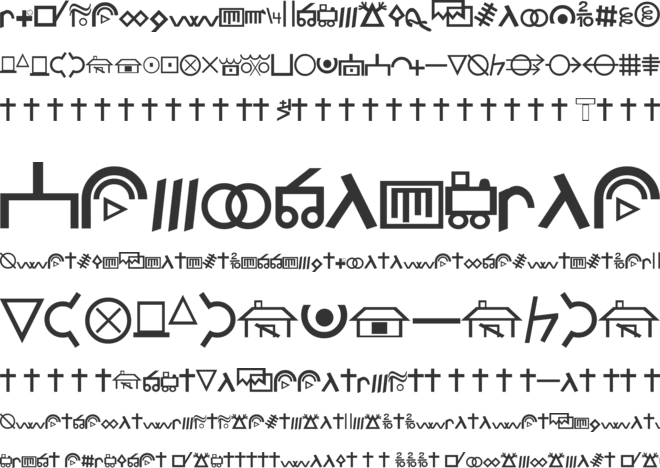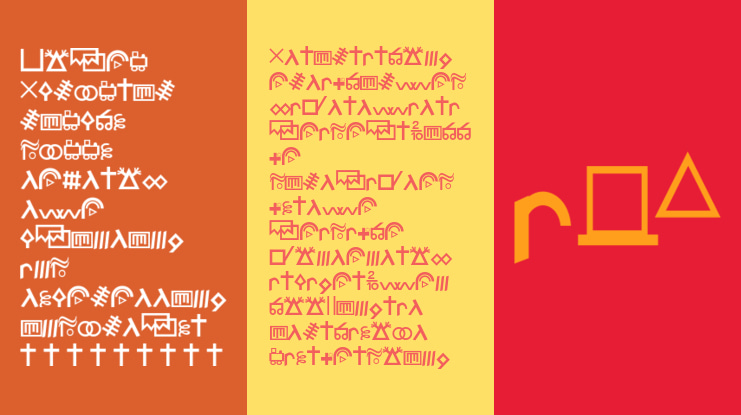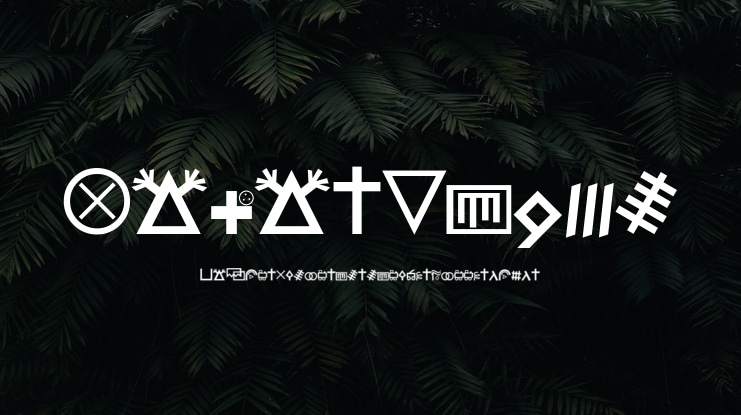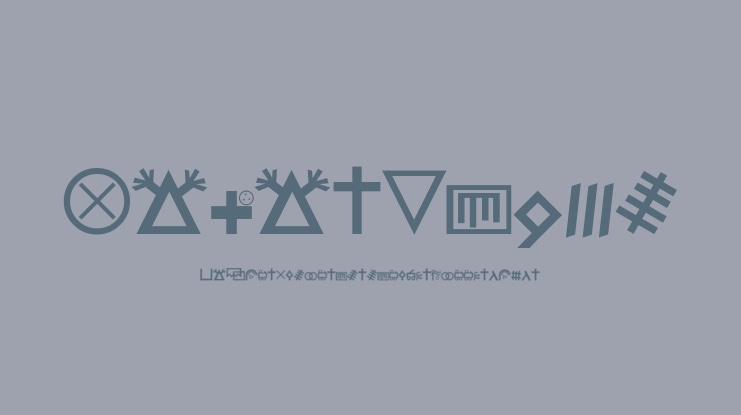
Hobo Signs Font
Matias Romero
Hobo signs are signs left by hobos to give directions to other hobos coming to town. They mean nothing to those who have never seen them, but are invaluable help for those in need of a job in town and a safe place to stay.